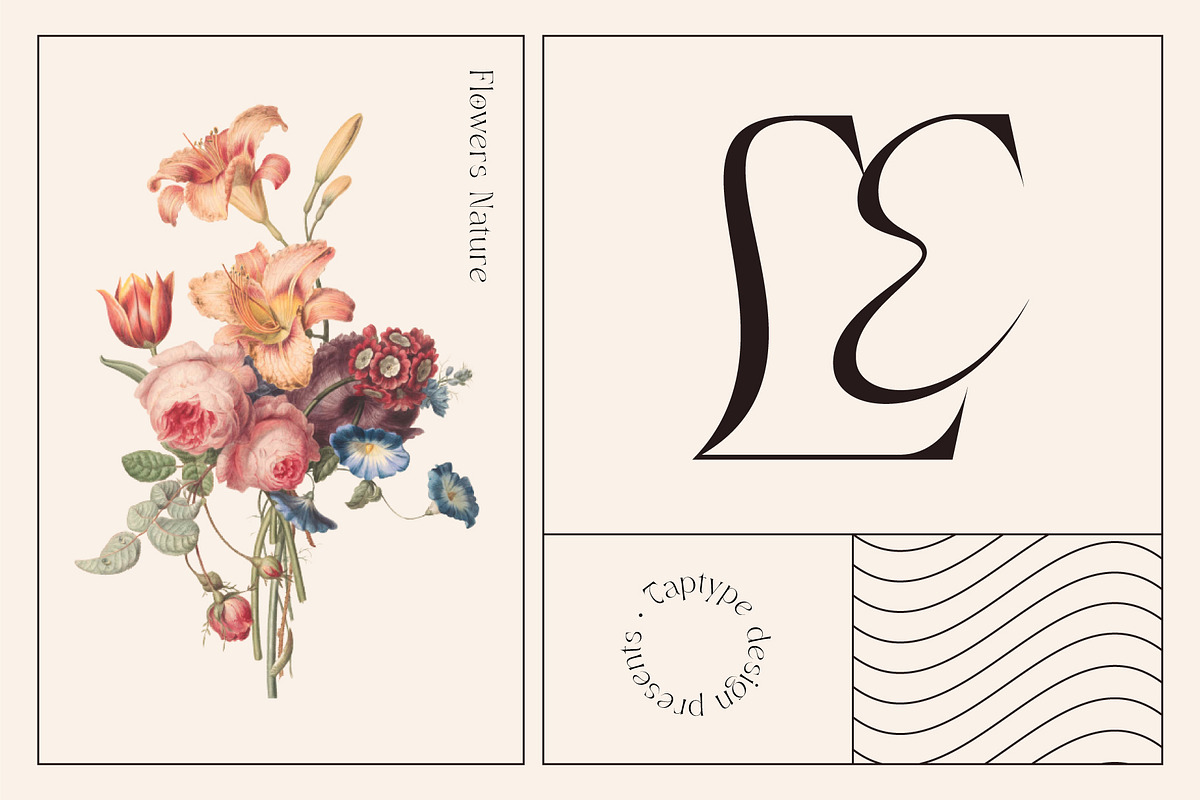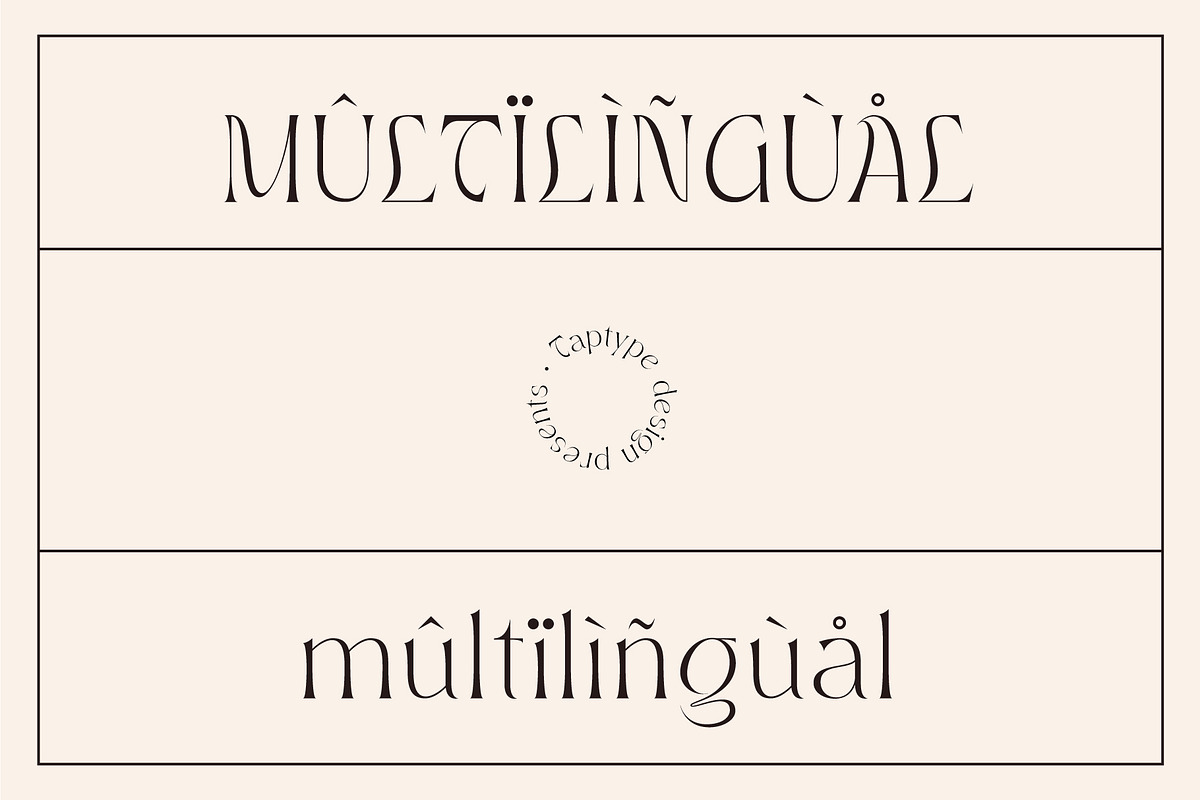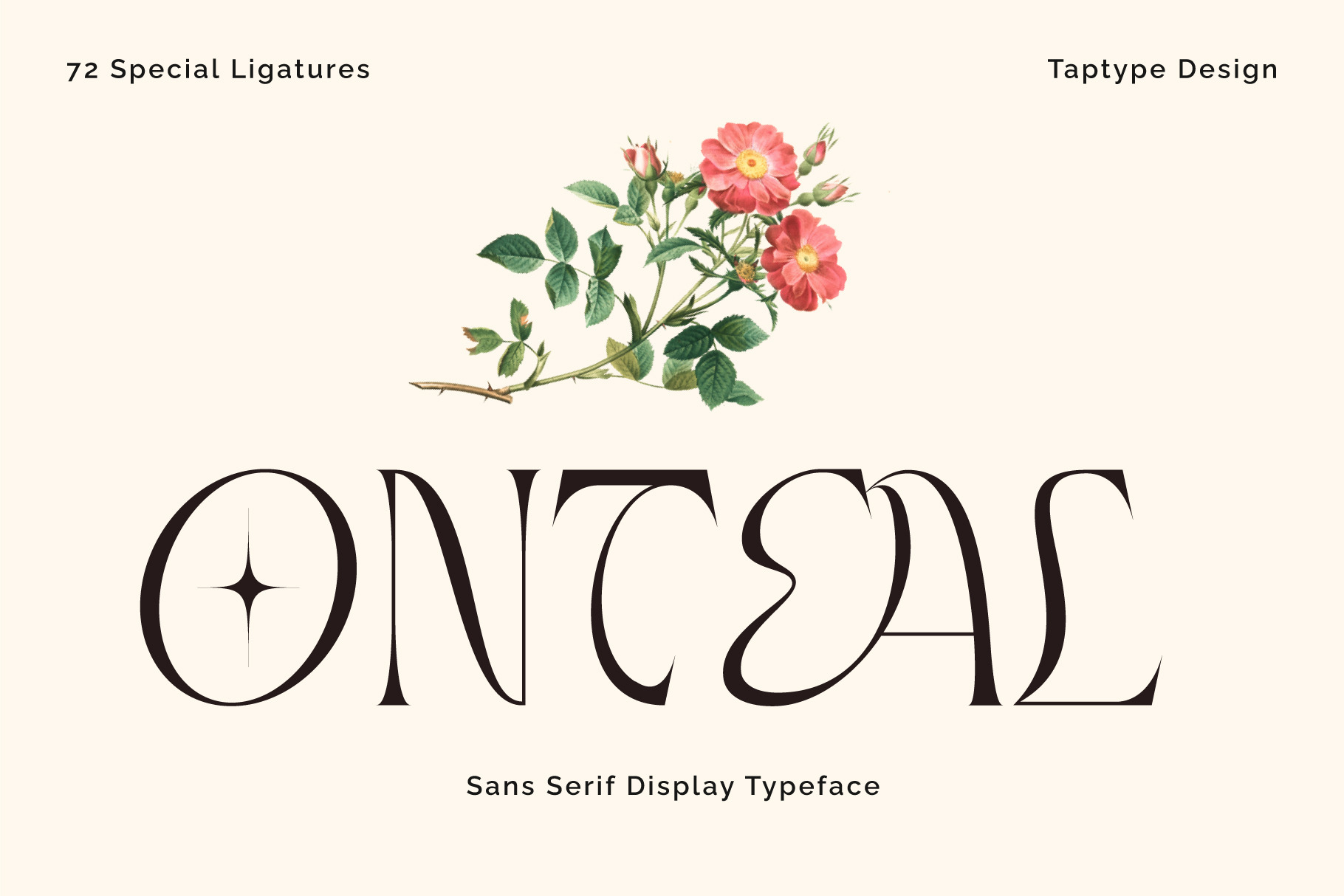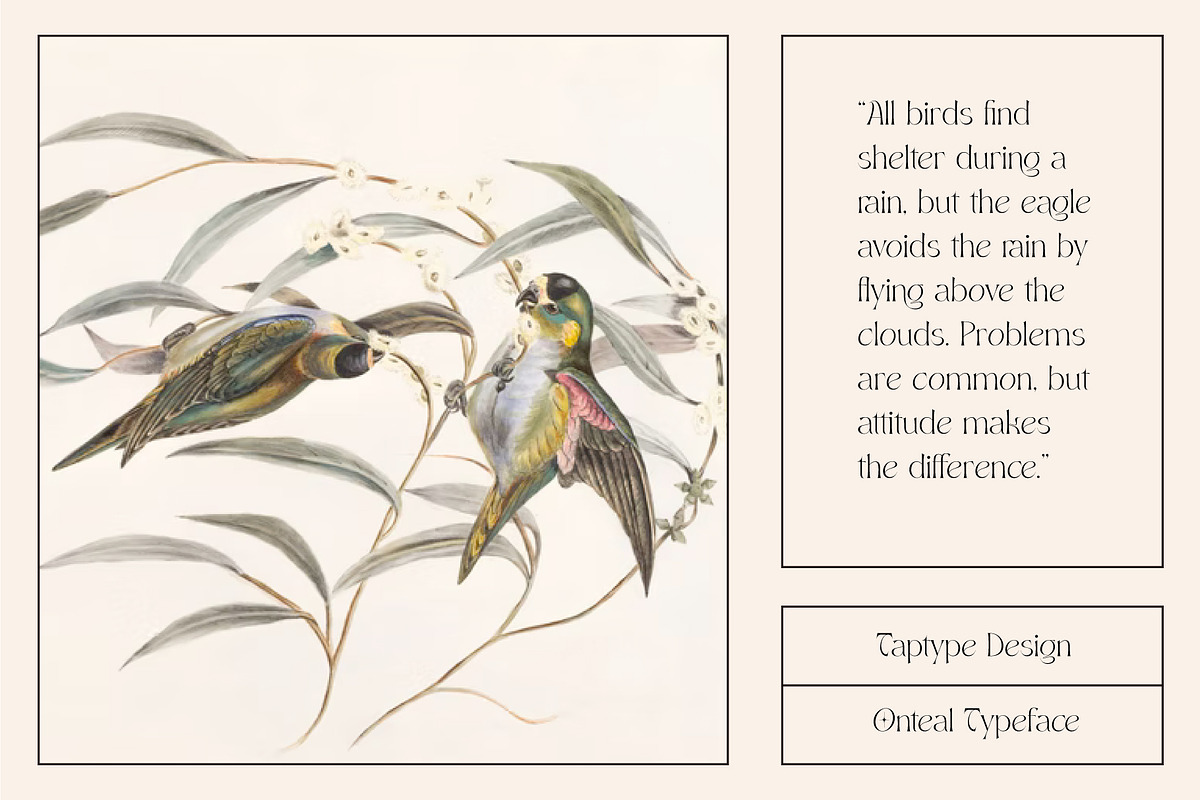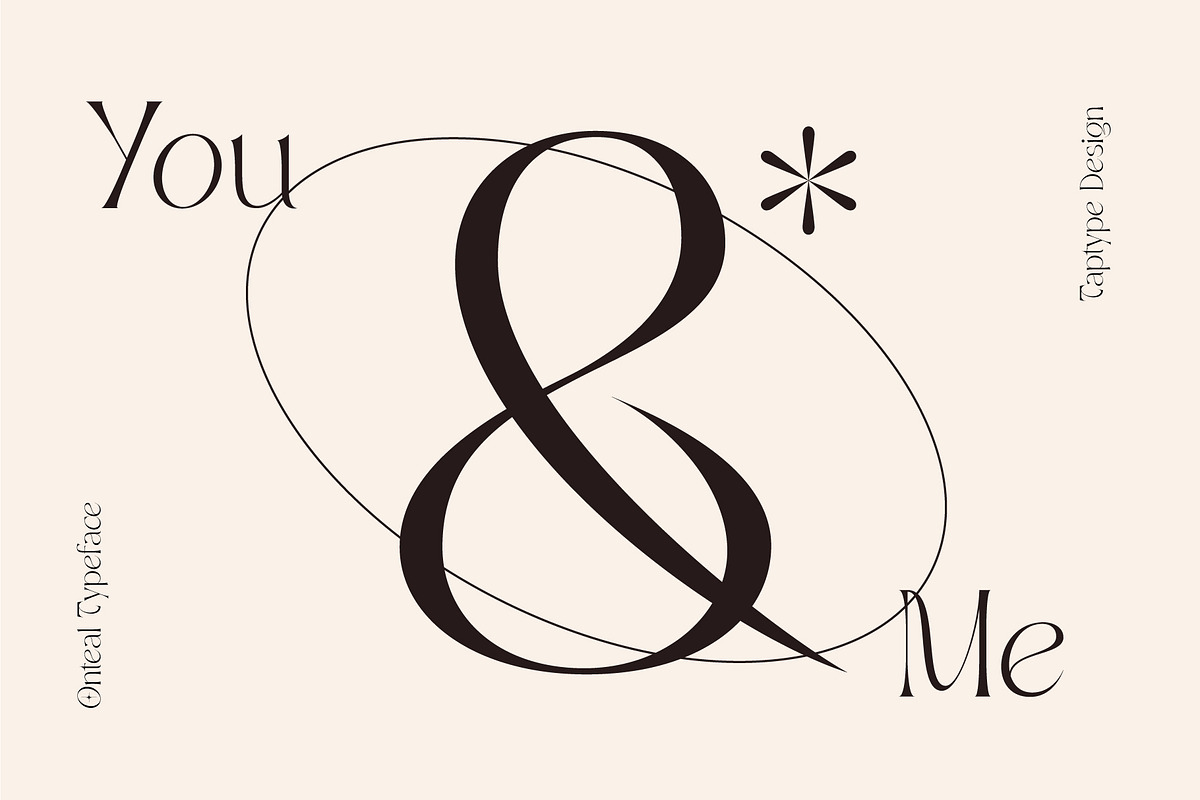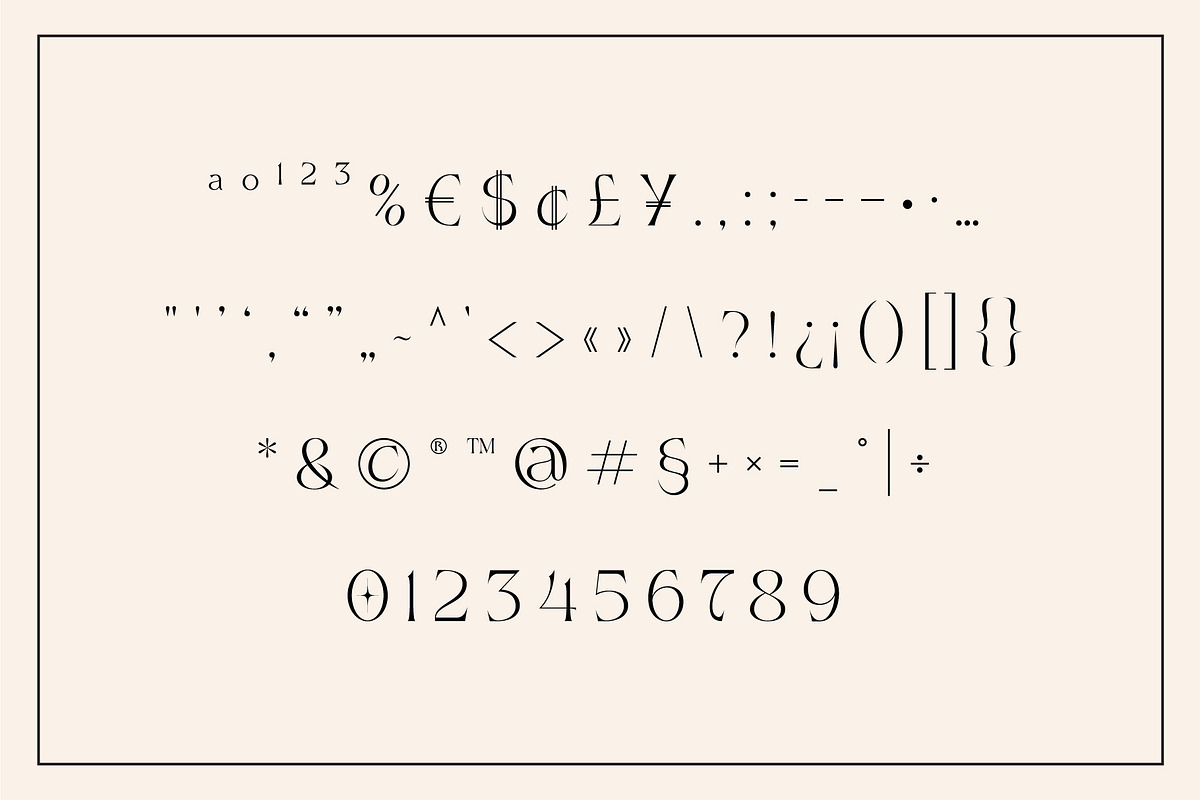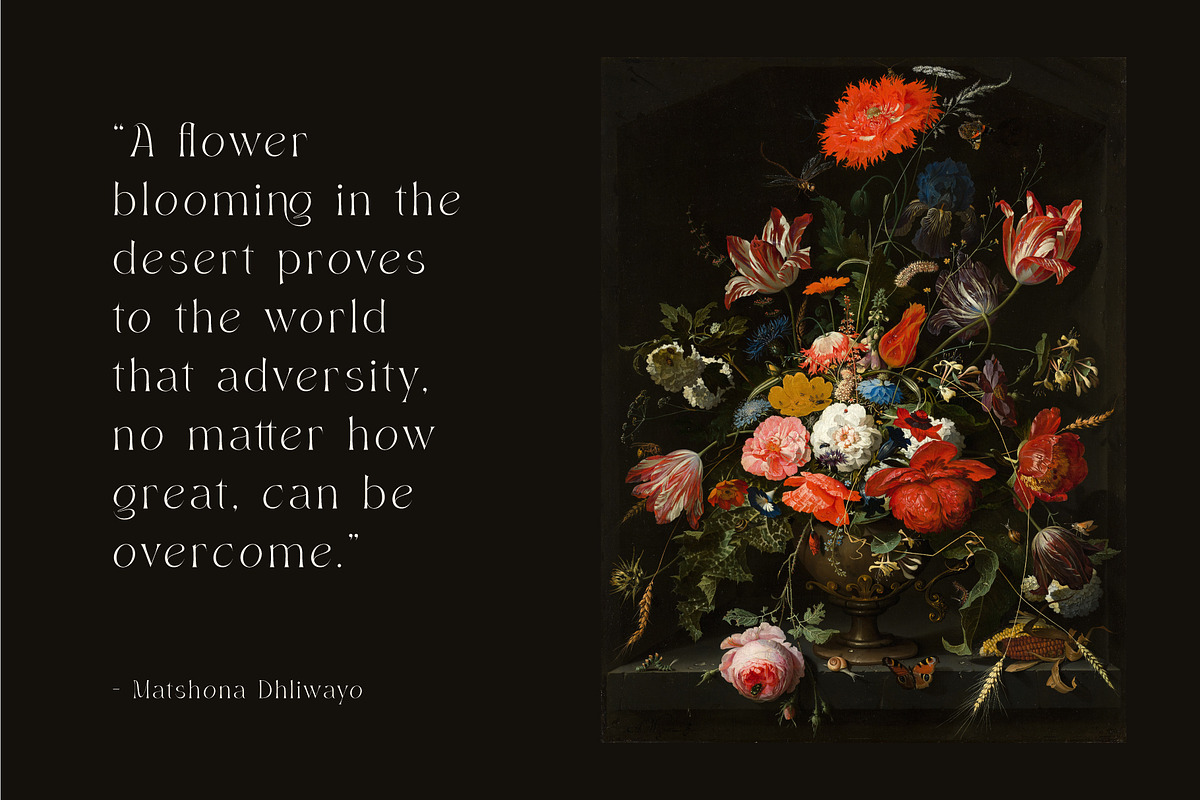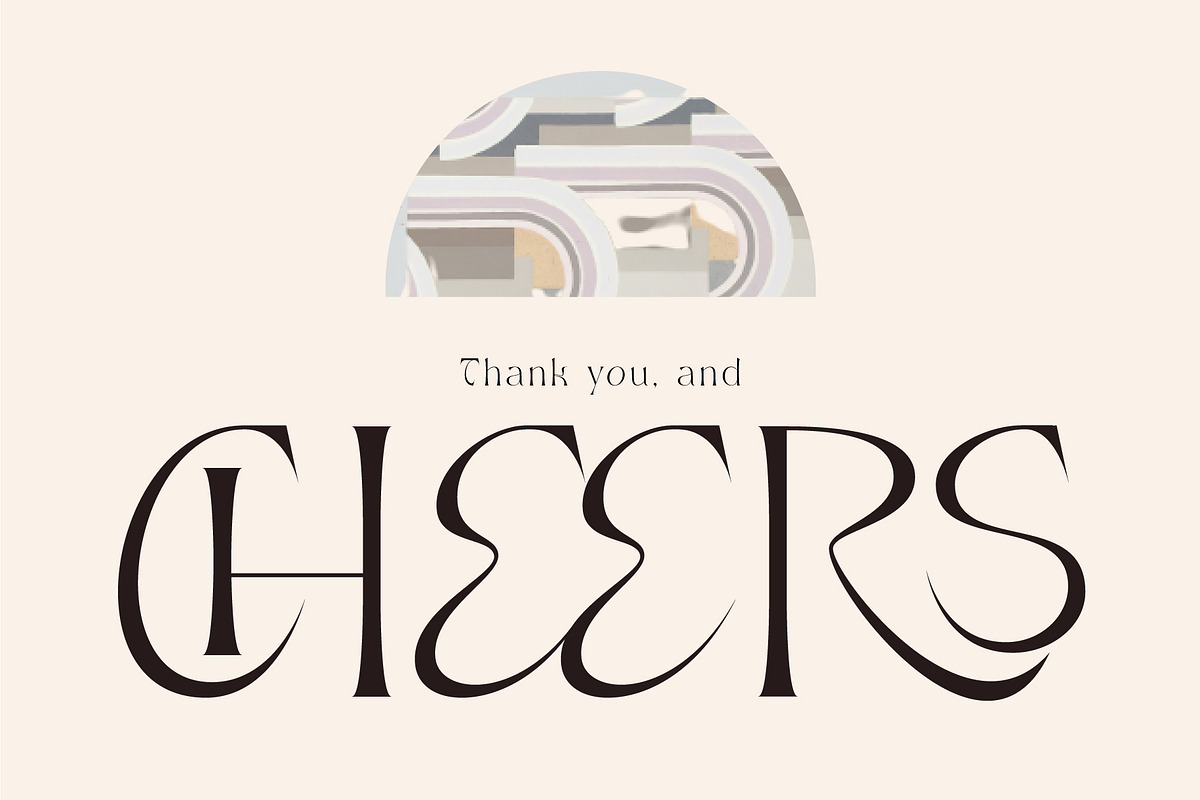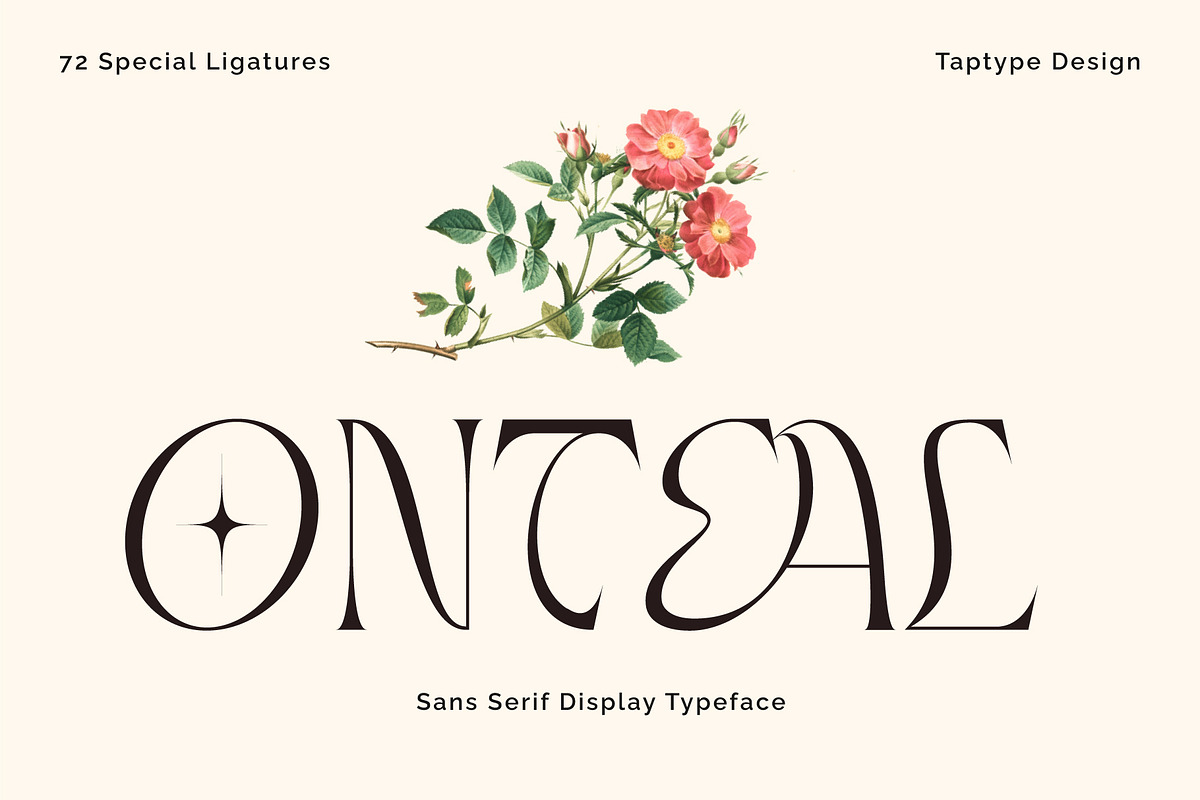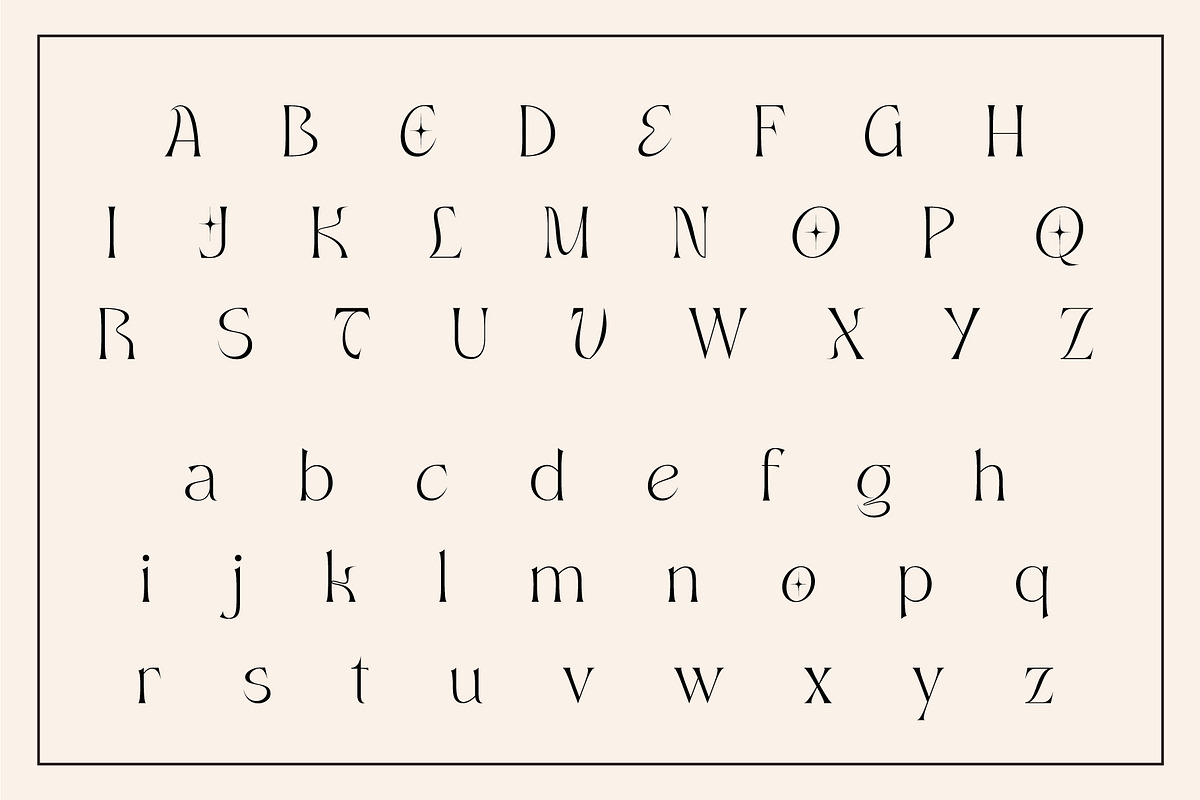
Onteal - Serif Display Ligature Font
Onteal is a stylish modern font Serif. Minimalist character that allowing you to easily edit the designs. It is perfect for branding, wedding invites and cards, and maybe for some project.
- 72 Special ligatures